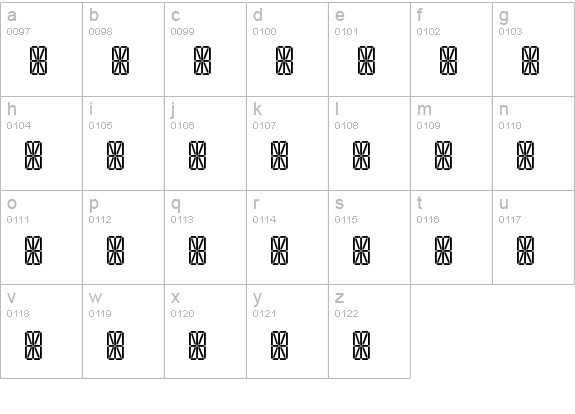
Transponder Grid AOE Font Details
Transponder Grid AOE font is a stunning display typeface that effortlessly combines modernity with a hint of futuristic charm. Its intricate and geometric design draws inspiration from the electronic world, creating a visual symphony that is both captivating and versatile. With its bold, sharp edges and meticulously crafted lines, Transponder Grid AOE font demands attention and makes a bold statement in any design project. Whether used for headlines, logos, or branding materials, this font exudes confidence and adds a touch of sophistication to any composition. One of the most remarkable aspects of Transponder Grid AOE font is that it is freely available to download at FontsMarket.com. This means that designers and creatives can access this exceptional typeface without any cost, allowing them to explore its vast potential and incorporate it into their projects seamlessly. The versatility of Transponder Grid AOE font knows no bounds. From technology-related designs to futuristic themes, this font adapts effortlessly, bringing a sense of innovation and elegance to every application. Its clean and sleek aesthetic ensures legibility even at smaller sizes, making it a perfect choice for web designs, mobile applications, and user interfaces. No matter the project at hand, Transponder Grid AOE font elevates the visual experience, leaving a lasting impression on viewers. Its distinctive style and attention to detail set it apart from the crowd, making it a go-to choice for designers who strive for originality and impact. So, if you're in search of a remarkable typeface that not only adds a touch of modernity but also comes free of charge, look no further than Transponder Grid AOE font. Download it today at FontsMarket.com, and let your creativity soar to new heights.